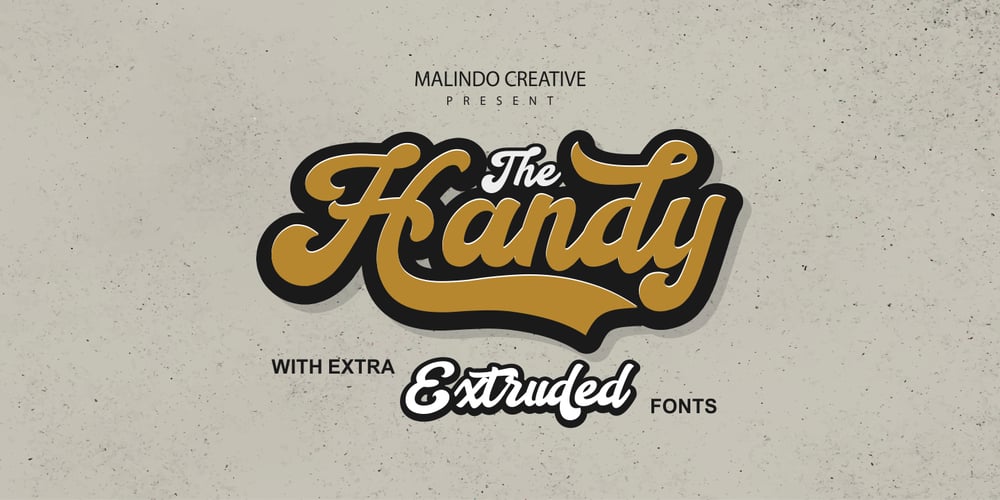
Handy
Handy font
Handy Font Family was designed by Murtadha bin Sulaiman and published by Malindo Creative. Handy contains 3 styles and family package options. Introducing,Handy Script Is a Beautiful font of retro style, Give your typography design a touch of retro style with Handy Script, Handy Script is one of hand lettering project. It was very inspired from the famous retro typography designs.Handy Script also comes with extra Extruded Font version. So you don’t need extra effort for create an extrude effect for this font. This mean it will saves your time.Handy Script Comes With 406 Glyphs and OpenType Features are also added to this font.The Features includes: Stylistic Alternates, Swashes, Ligatures, and Stylistic Set. You can pick the alternate for all style.If you have any questions, please contact me at: malindocreative@gmail.com. Feel free to contact me, I am happy to help you.Thank you for your kindness and support, it’s not hidden, what you see in preview is what it contains,Hopefully Useful, Good Luck For You, And Love You All.